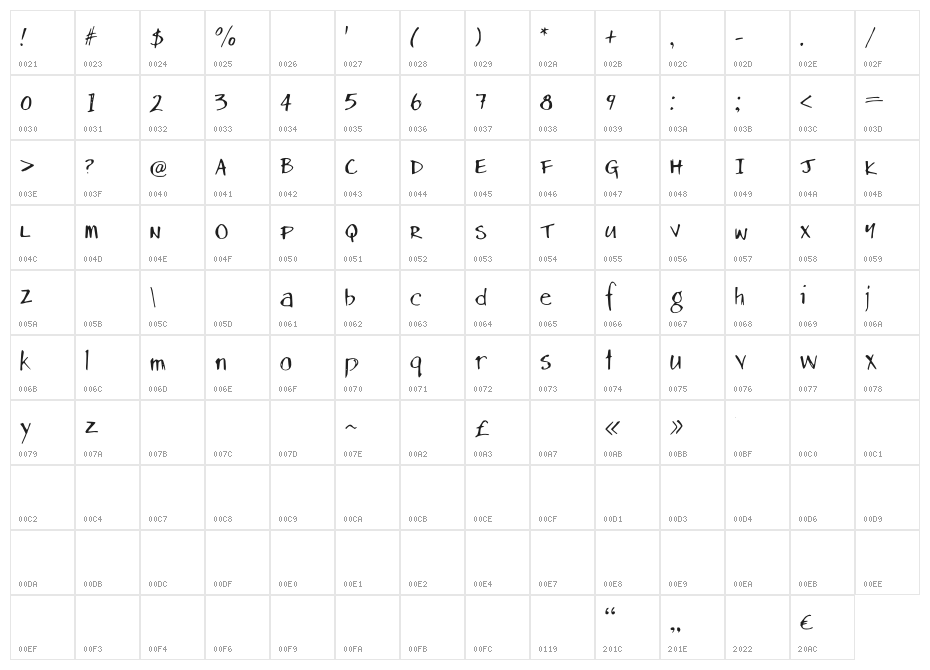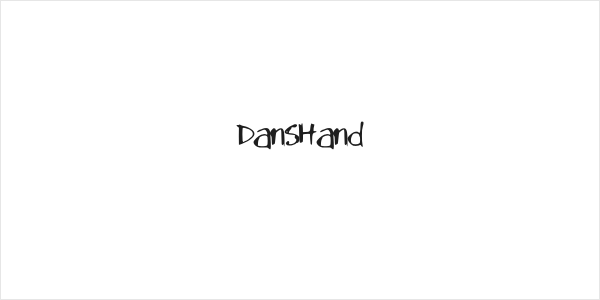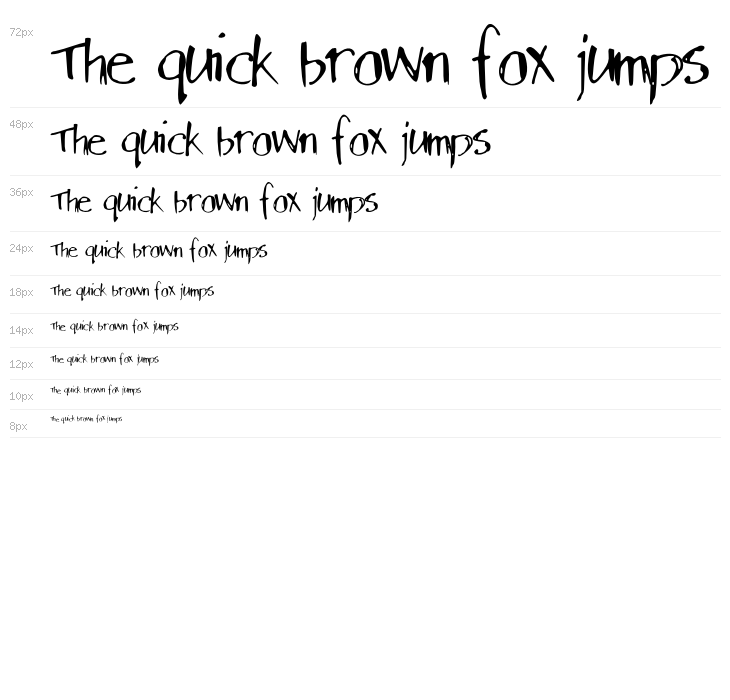
DansHand Font
✎ Handwritten
| 分类 | Handwritten |
| 整体风格 | Casual, Playful |
| 使用场景 | Logos, Invitations, Greeting Cards |
| 推荐项目 | Ideal for greeting cards, invitations, personal branding, and creative projects that require a friendly and approachable feel. |